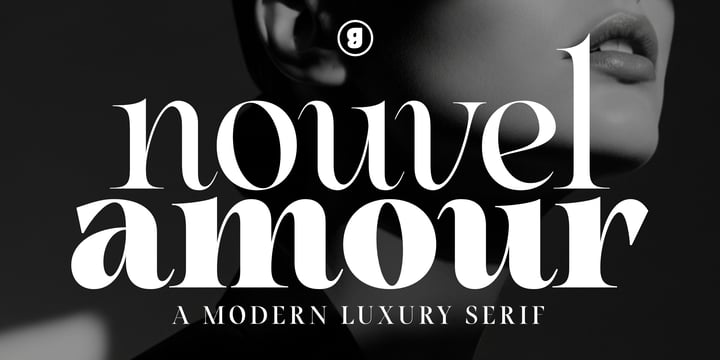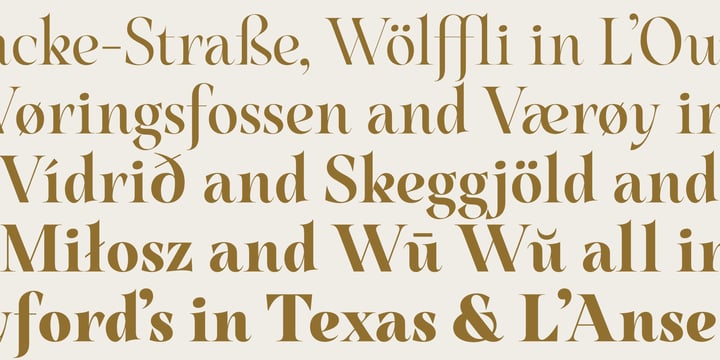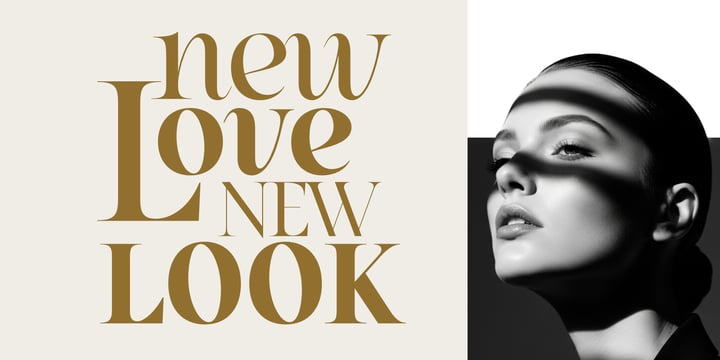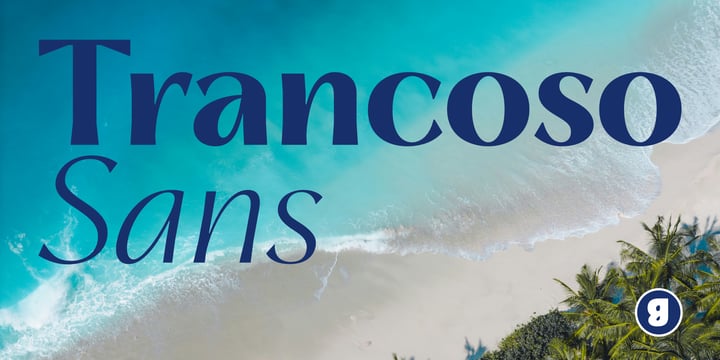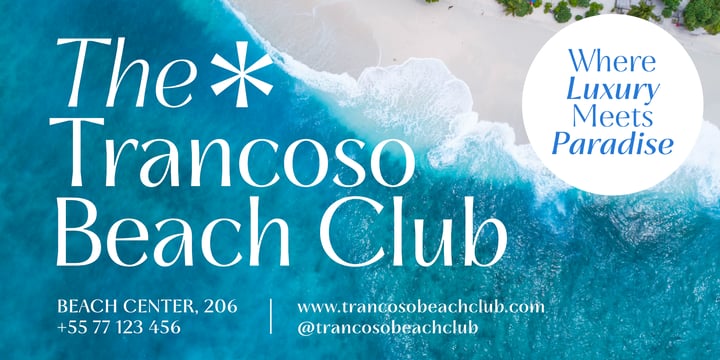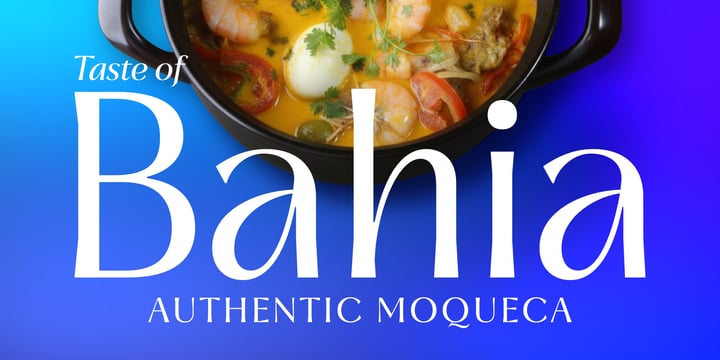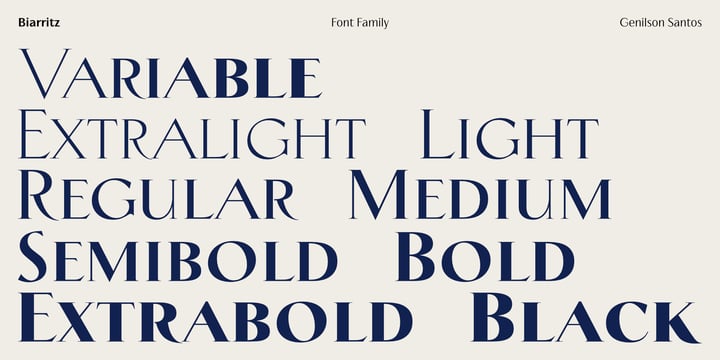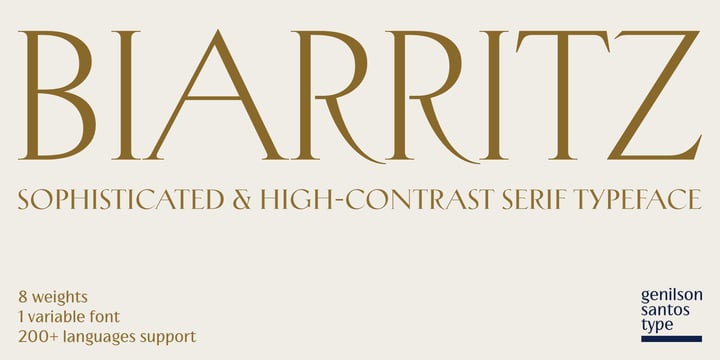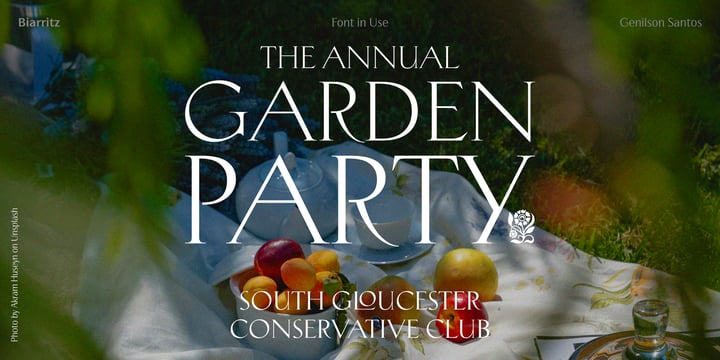
Genilson Santos
Genilson Santos is a Brazilian graphic designer who has transitioned into the world of typography. His journey into type design was sparked by a deep fascination with how letterforms shape perception and establish hierarchy in layout design. This curiosity has blossomed into a committed practice of crafting professional-grade fonts. Drawing inspiration from magazines, luxury branding, and artistic layouts, Genilson creates fonts that serve as powerful tools for creative professionals. He is dedicated to producing high-quality typography that provides extensive multilingual support and versatile OpenType features, making it suitable for a global audience. When he is not sketching new glyphs, he immerses himself in researching historical type specimens and modern calligraphy to refine his craft and expand his foundry’s catalog.